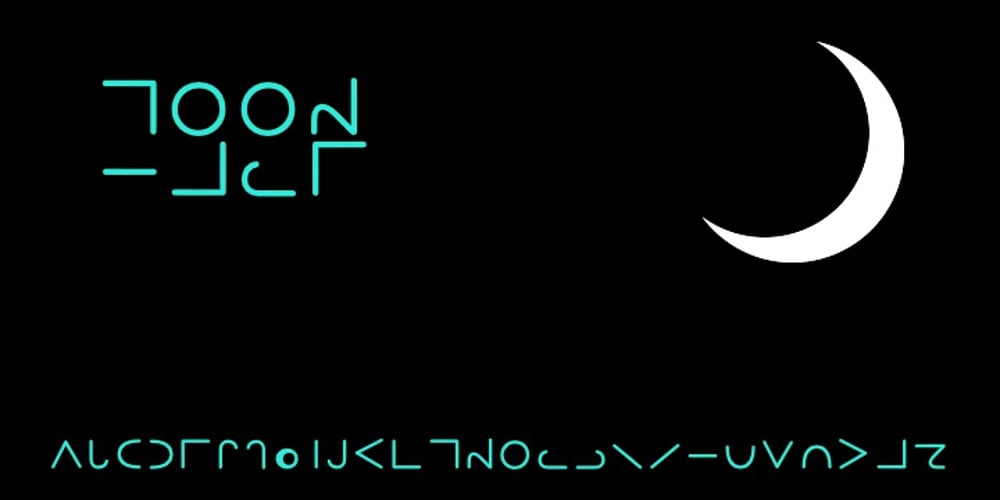
Moon Type
Moon Type font
Moon Type Font Family was designed by Thomas Käding and published by Thomas Käding. Moon Type contains 1 styles and family package options. This font of Moon Type is modelled after Dr. Moon’s original poster. He developed this embossed writing system to help those who have lost their sight later in life, and so are familiar with the shapes of English letters. Moon writing is still used, and you can find books written with it. This font only contains the letters and punctuation that are in the Moon Type system.